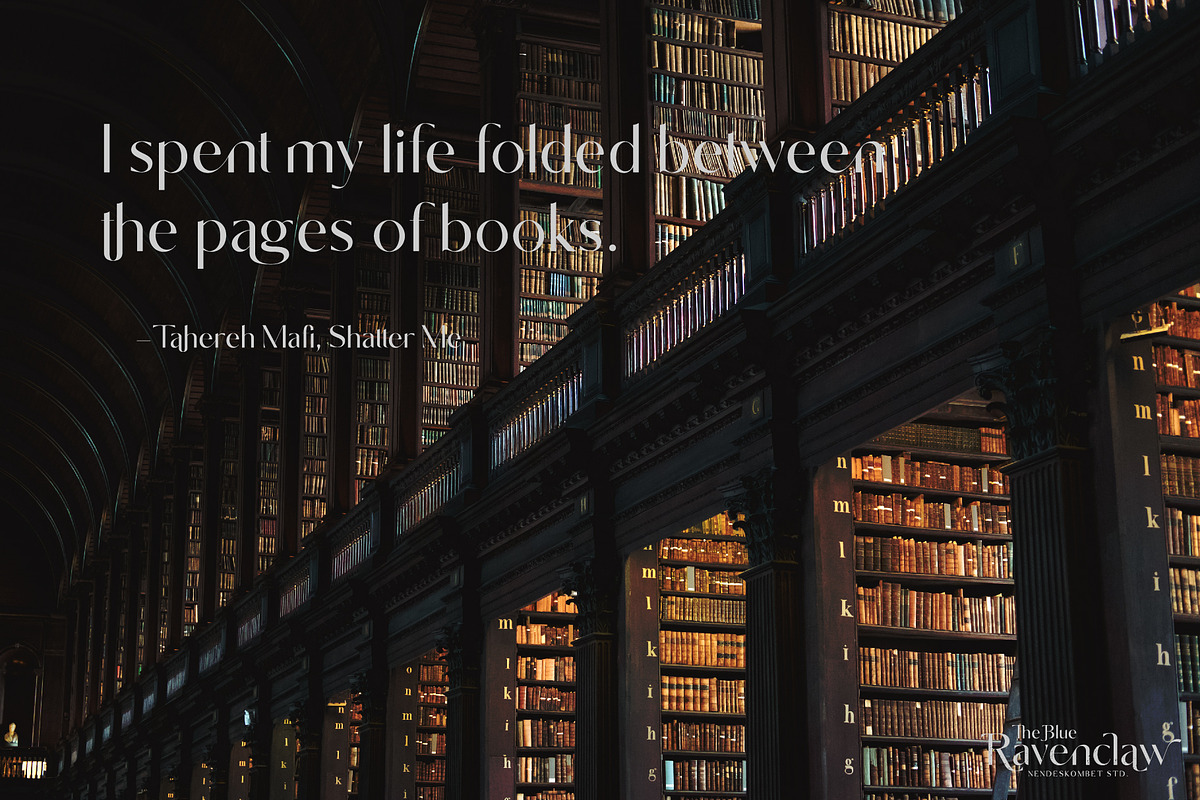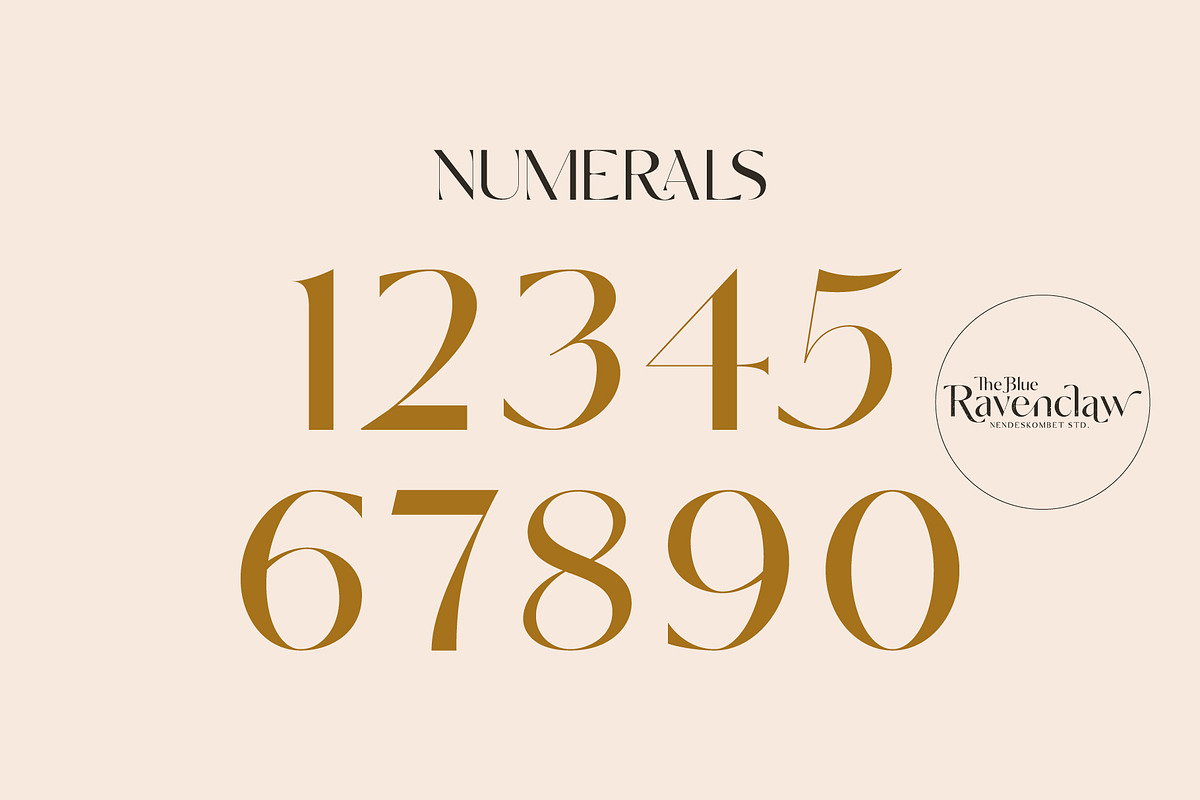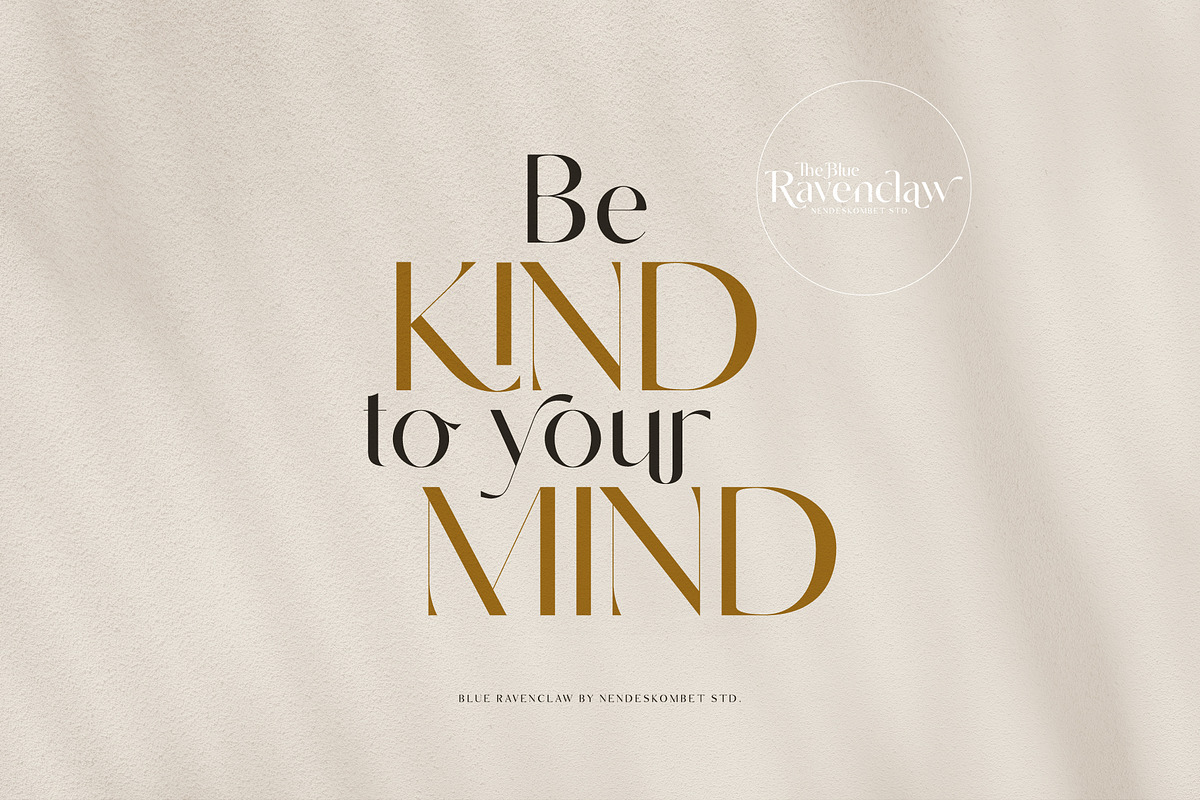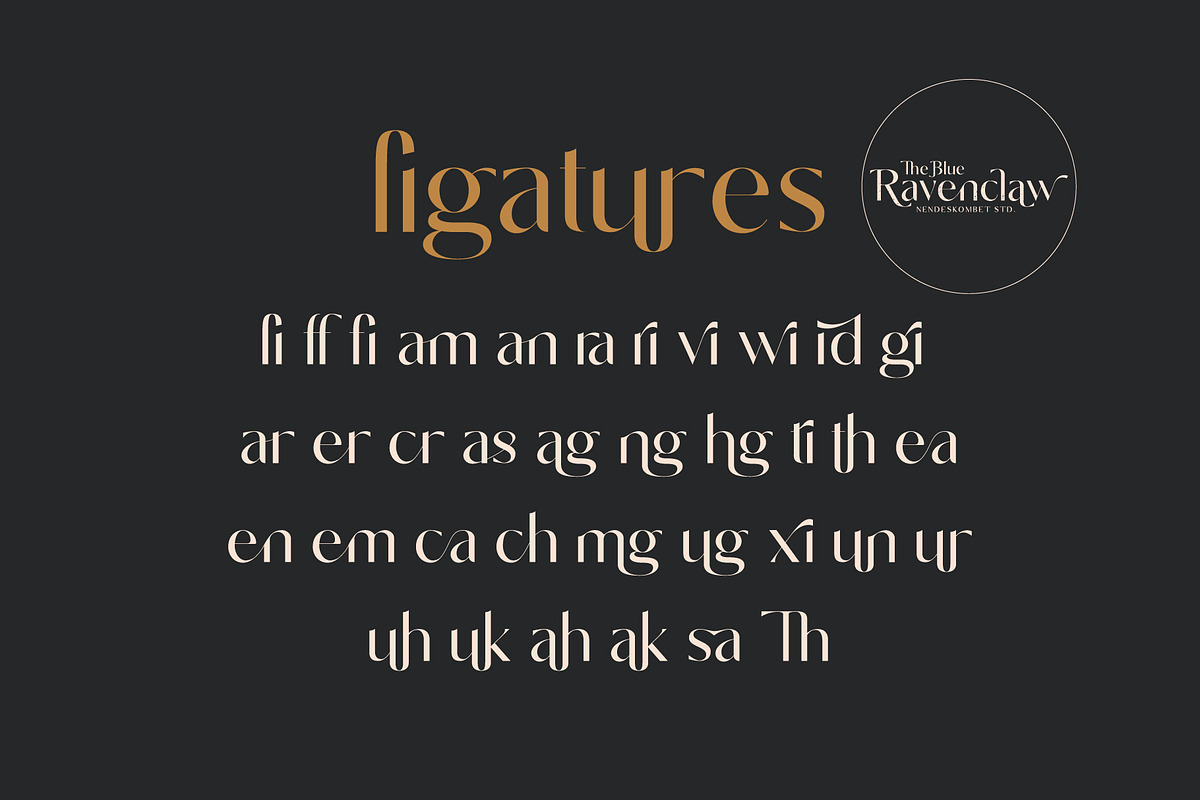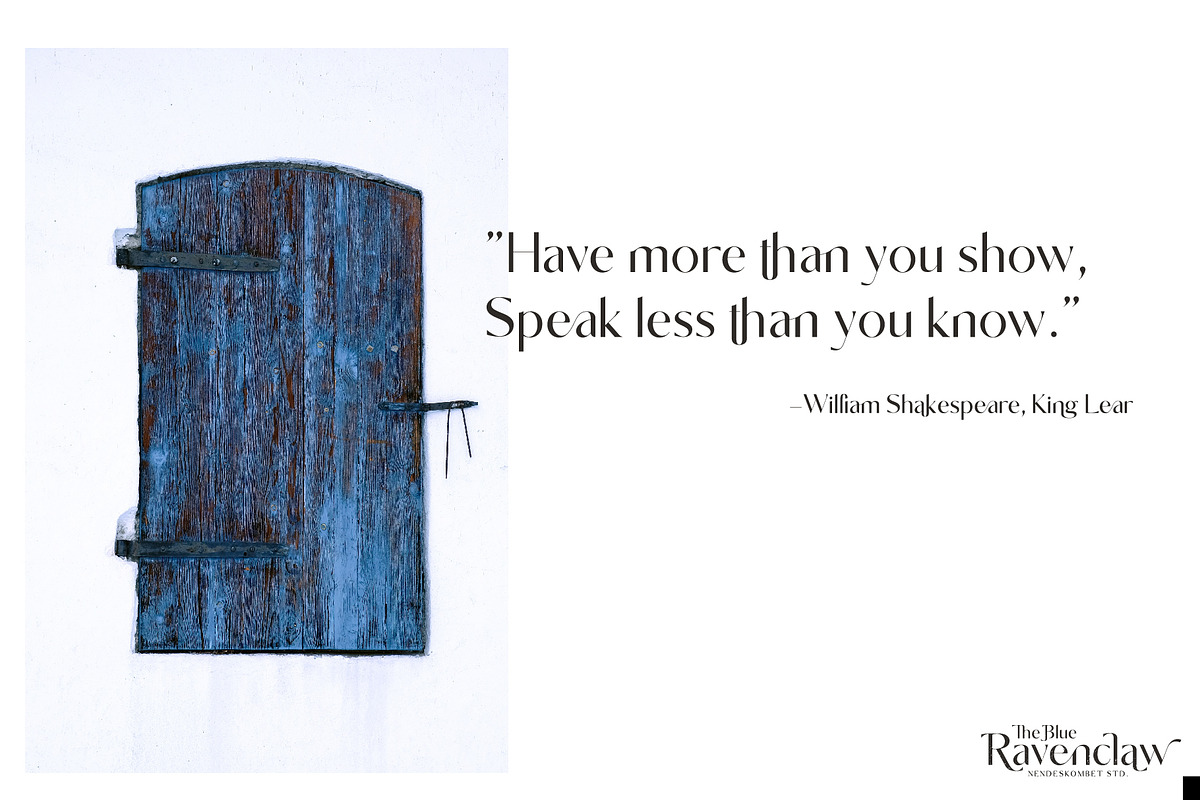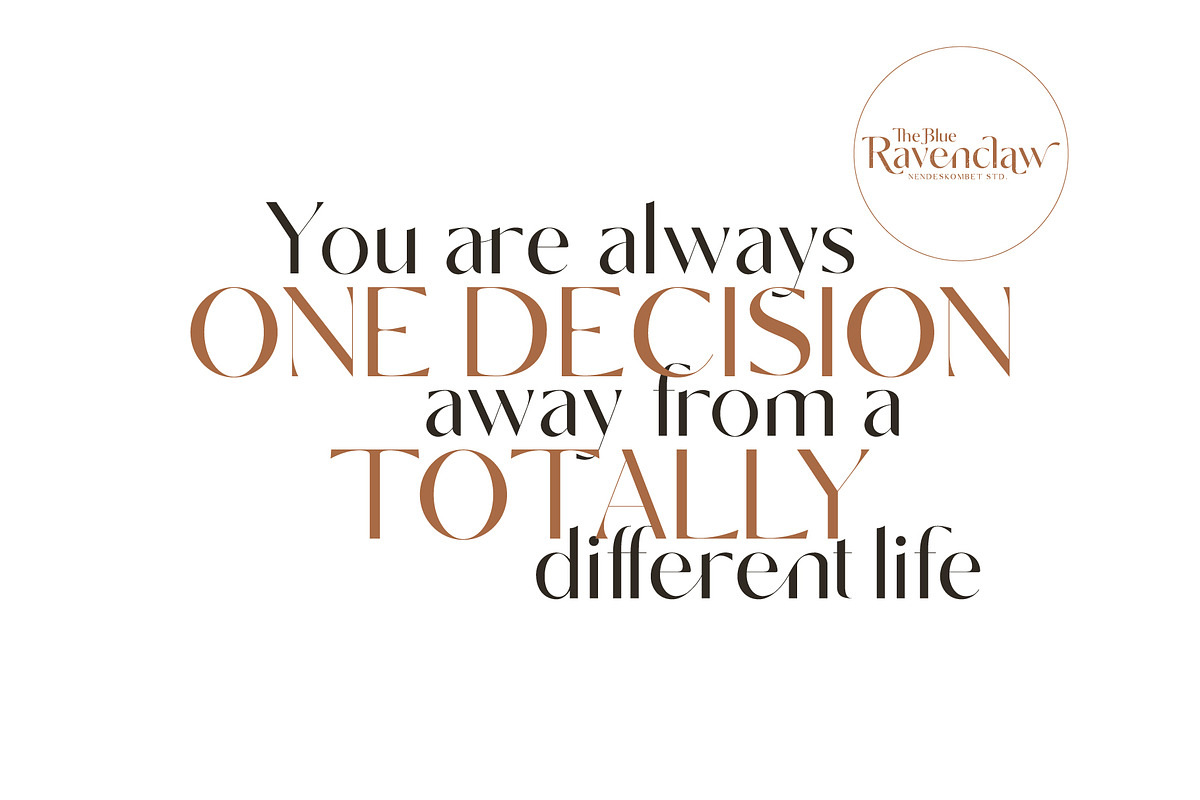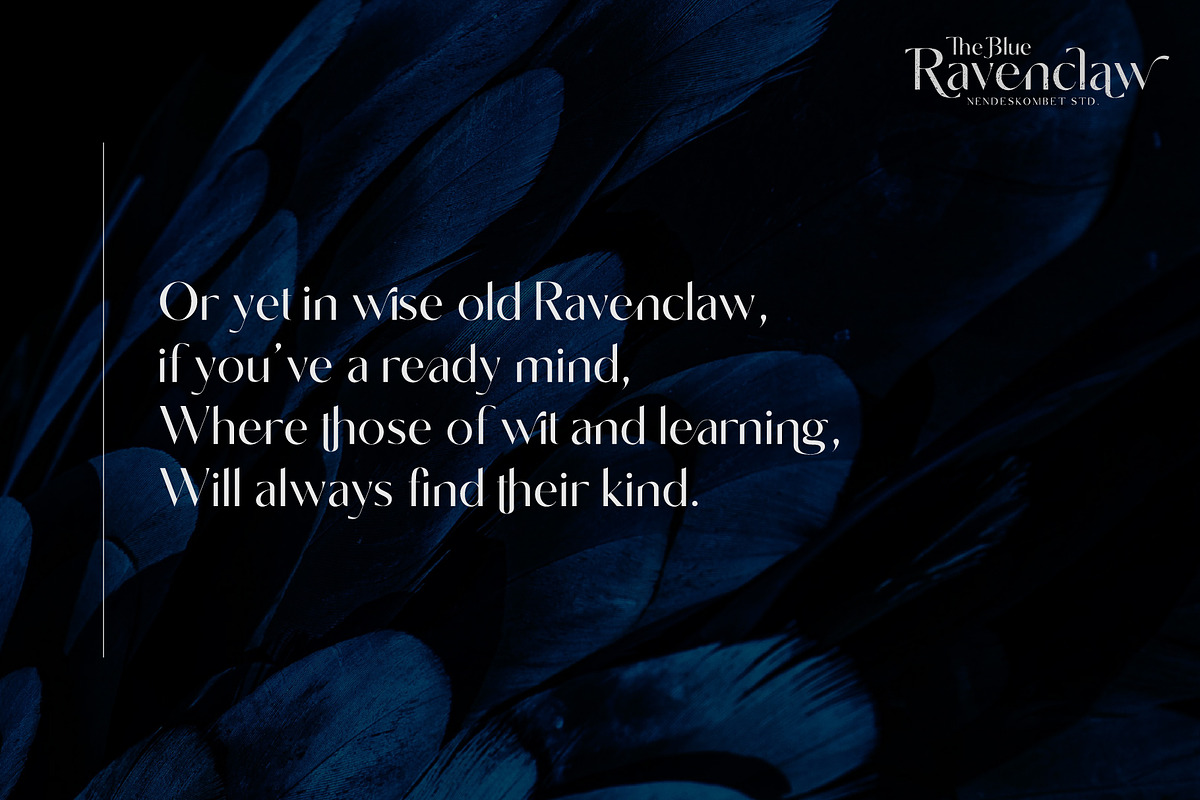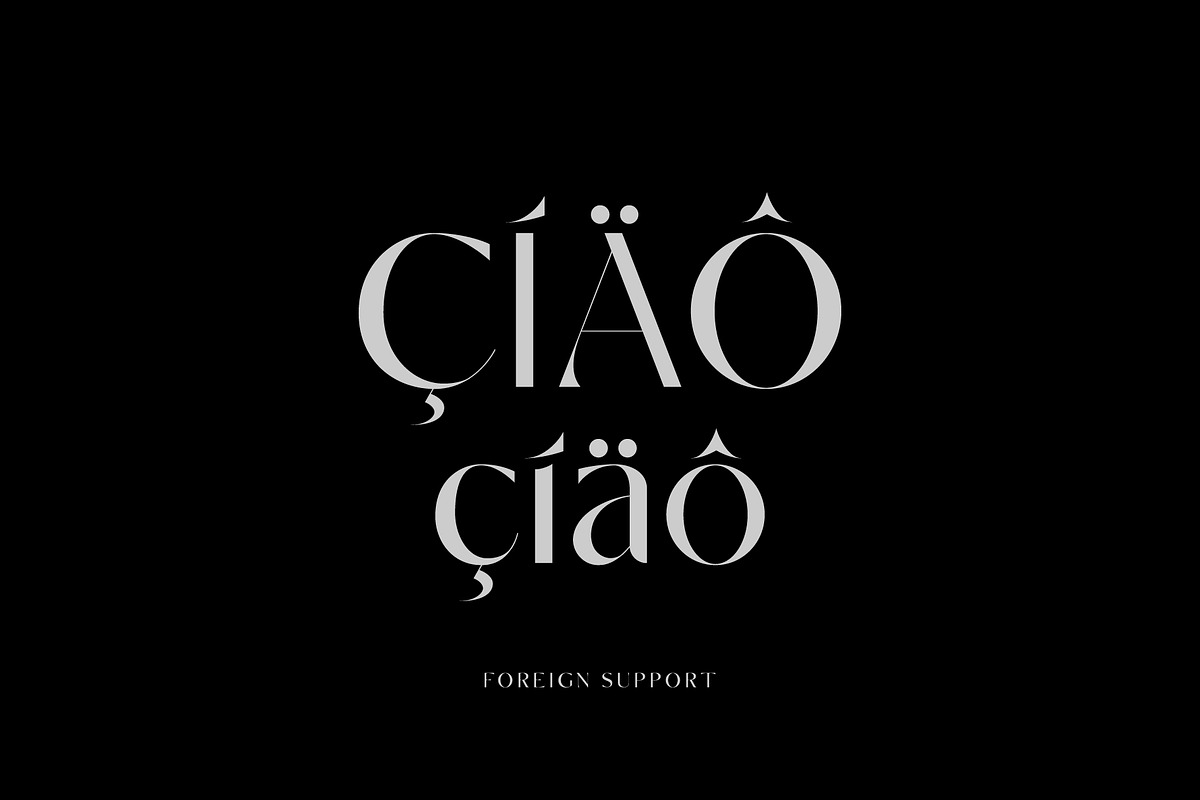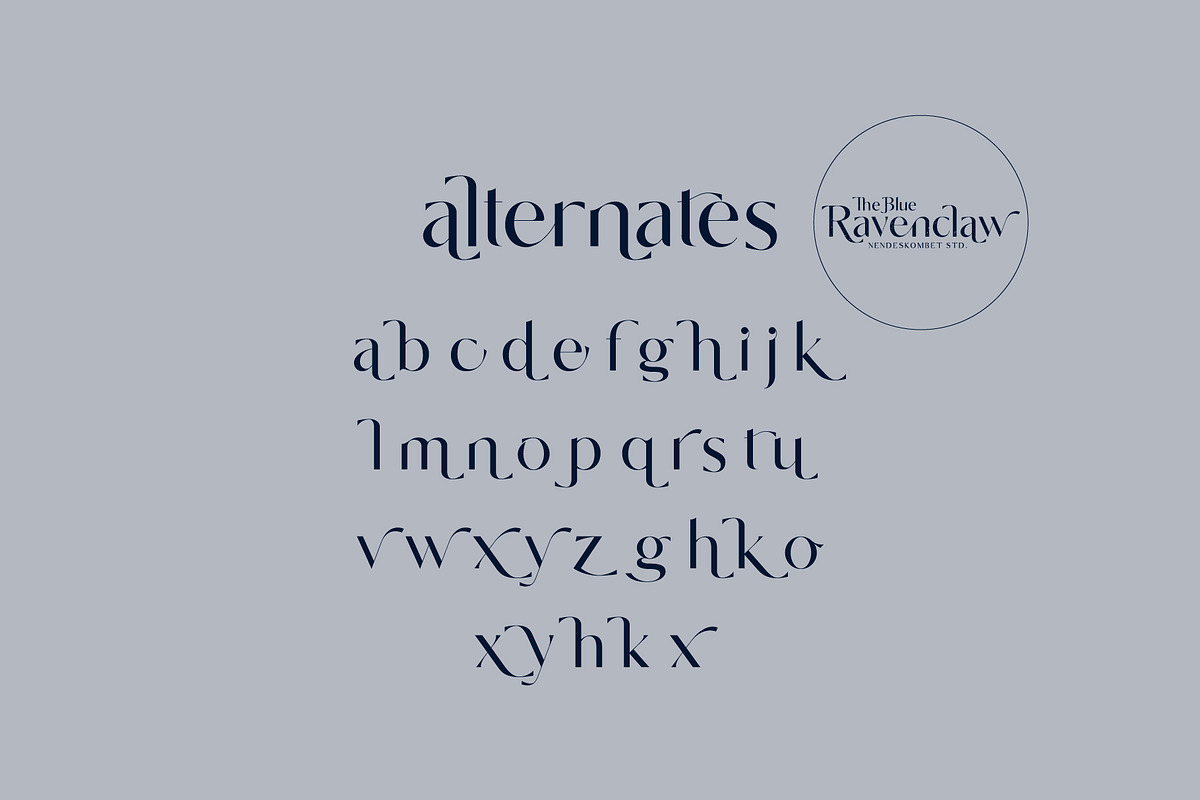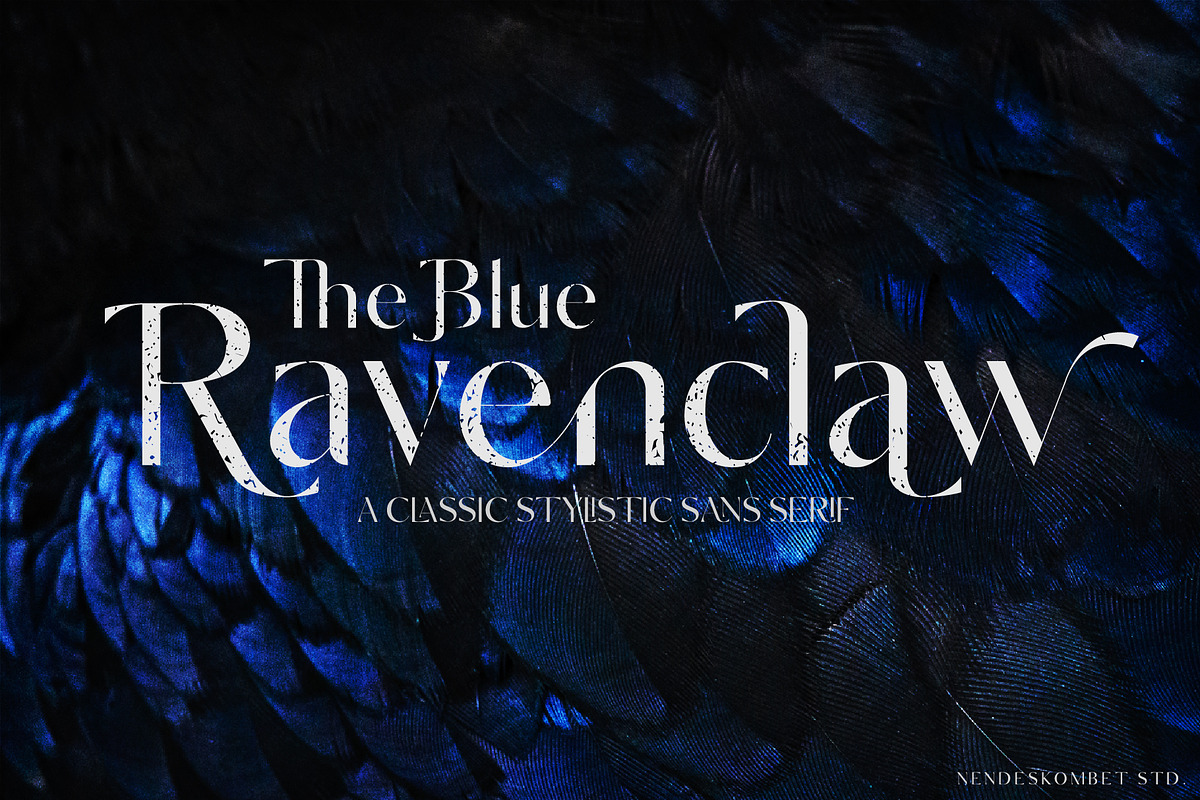
The Blue Ravenclaw - Stylistic Sans
Say hello to 'The Blue Ravenclaw!'
A classic and stylistic font, inspired by the lifelong trend of JK Rowling's book, Harry Potter. Just like this font, the perfectly smooth ligature will never be out of the trend. Sans Serif font is a multi-purpose font that is perfect for any project. It is contrasted, modern and easy to read. With it, you can create logos, use in advertising, packaging, book covers and magazines, headings, descriptions and much more. Elegant and charming, it includes alternatives and a variety of ligatures that will make your project unique.
Ravenclaw is also included full set of :
- Uppercase and Lowercase Letters
- Multilingual Symbols
- Ligatures Uppercase and Lowercase Letters
- Alternates Uppercase and Lowercase Letters